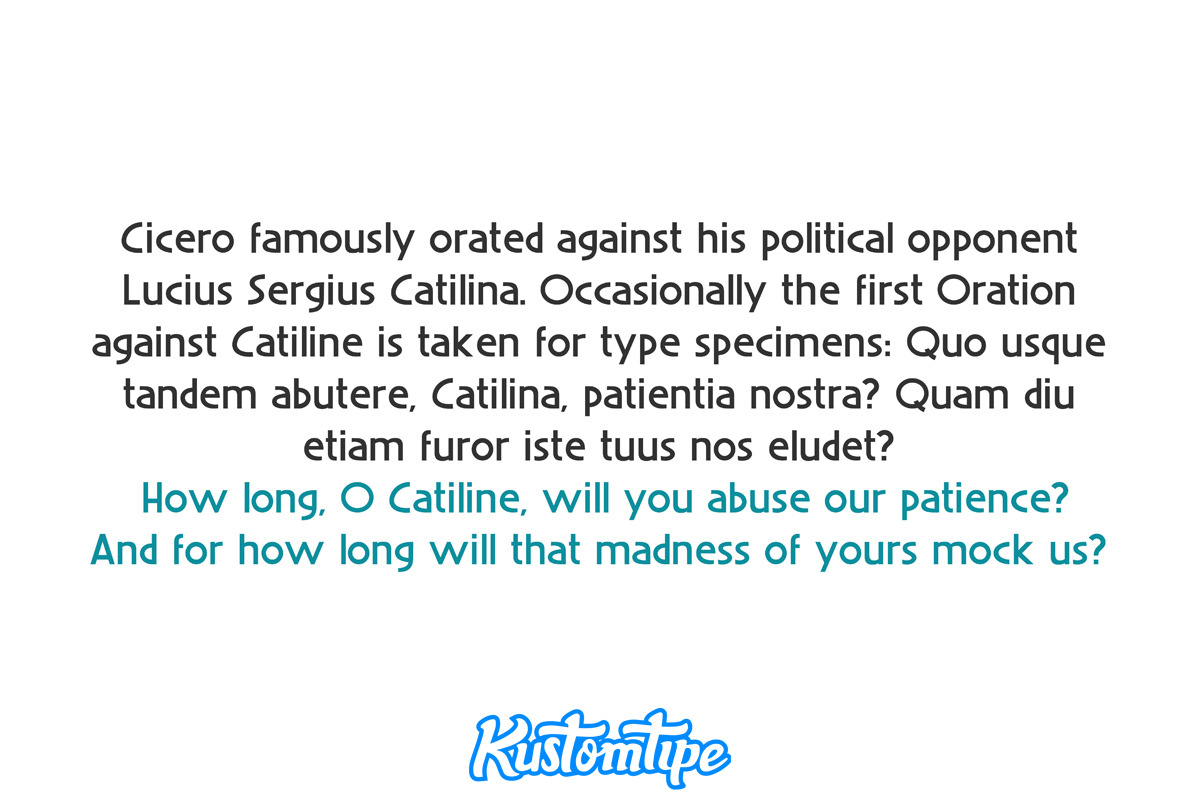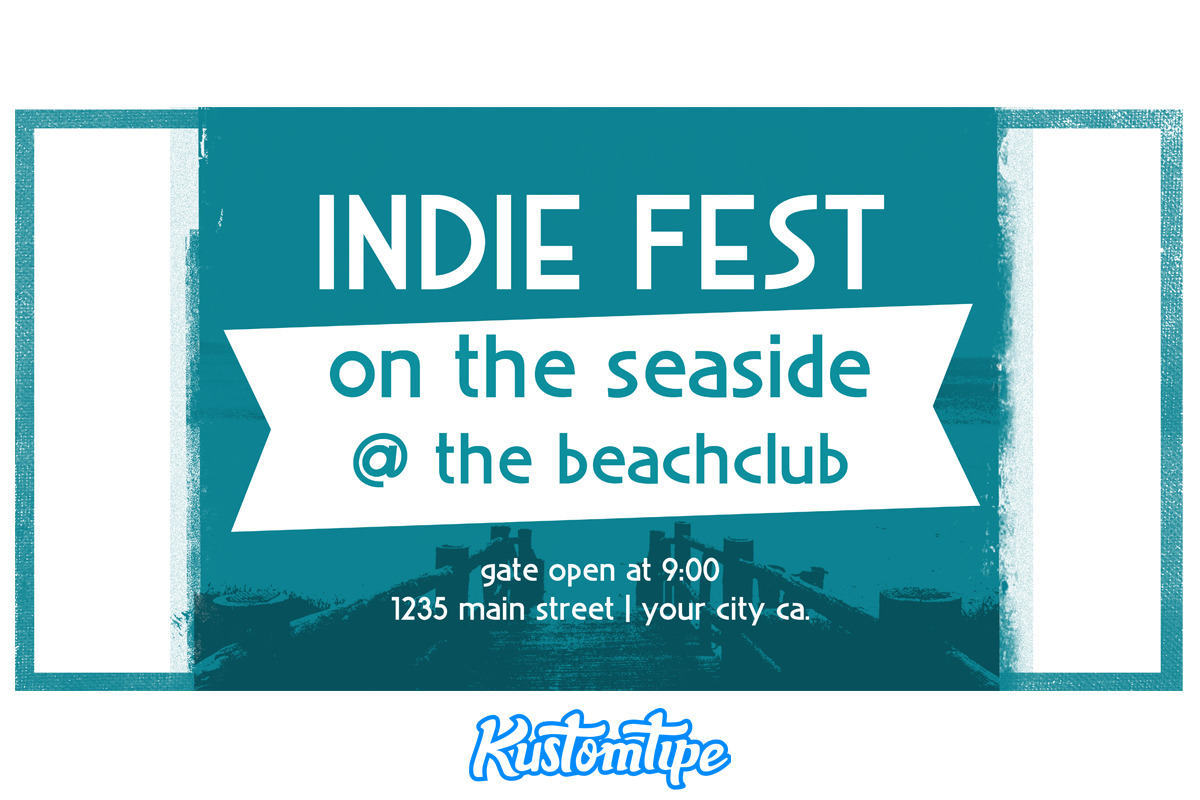
Sunbeam
Sunbeam is a new, classy & modern typeface that looks incredible! This beautiful new sans serif font comes in regular and italic; the contrasting lines and vibrant shapes give sunbeam a sleek and elegant look. Sunbeam is a versatile typeface that's full of character, using optical correction for better legibility. It is the perfect fit for graphic design, editorial design, magazines, posters, logotypes, brands and corporate design. Sunbeam is designed by Coert De Decker in 2019 and published by Kustomtype Font Foundry.